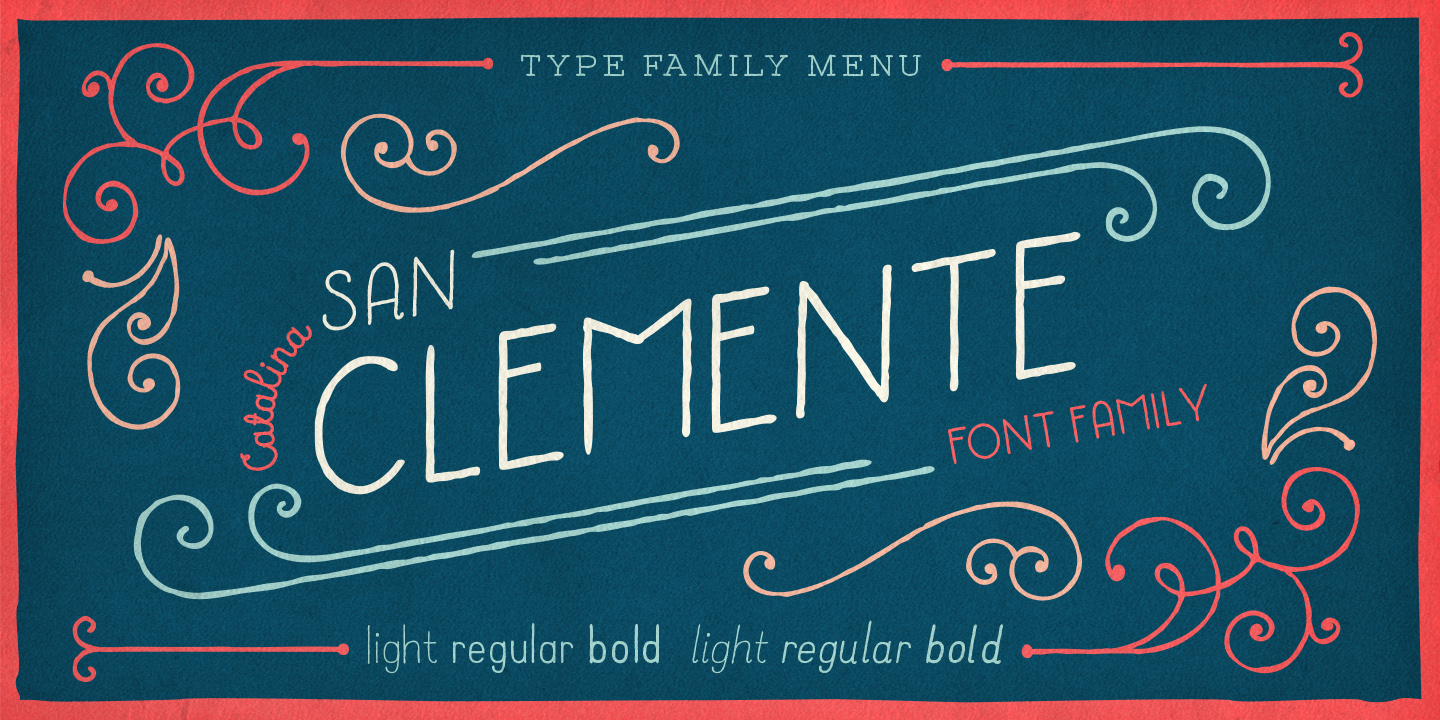
Catalina Clemente Family (6 fonts)
From Kimmy Design
The Catalina Clemente features a more standard width, Clemente is one of the two sub families that can be used for paragraph text as well as headlines. It’s organically geometric in style and comes in ALL CAPS and lowercase, includes upright and custom italics, and has the opentype feature giving 3 versions of each letter.